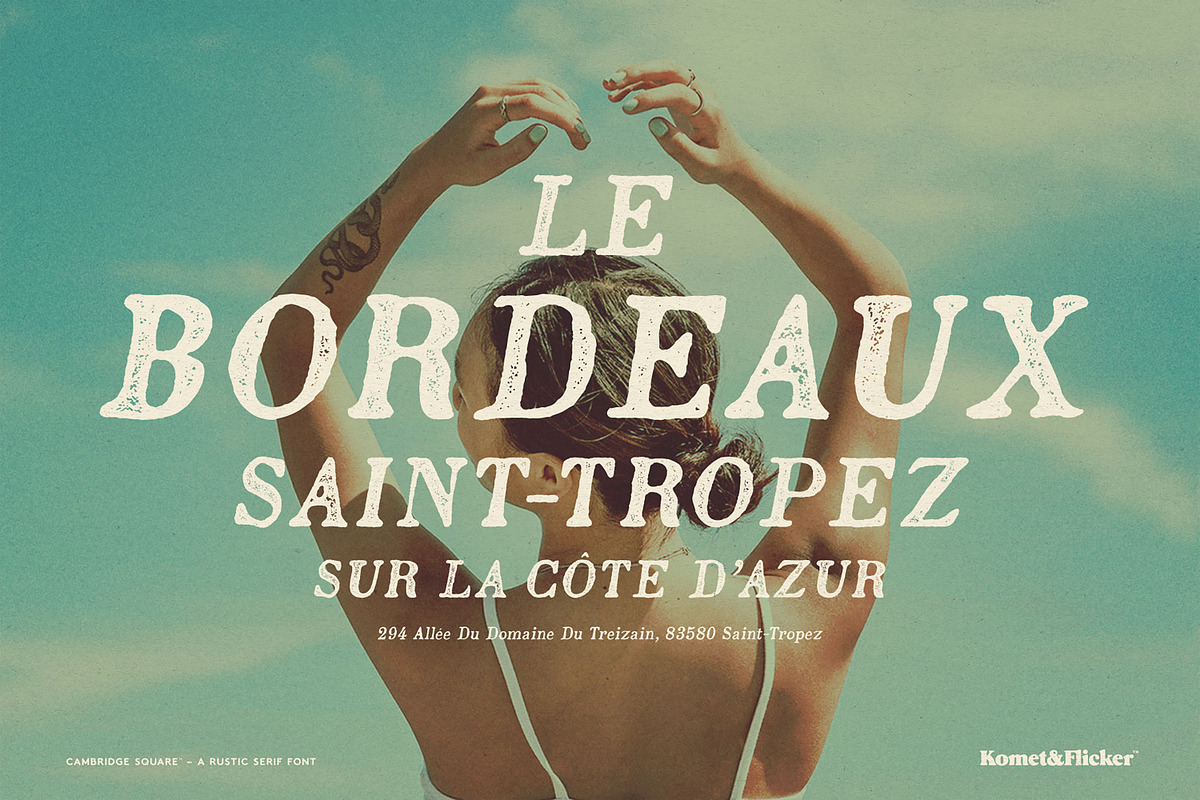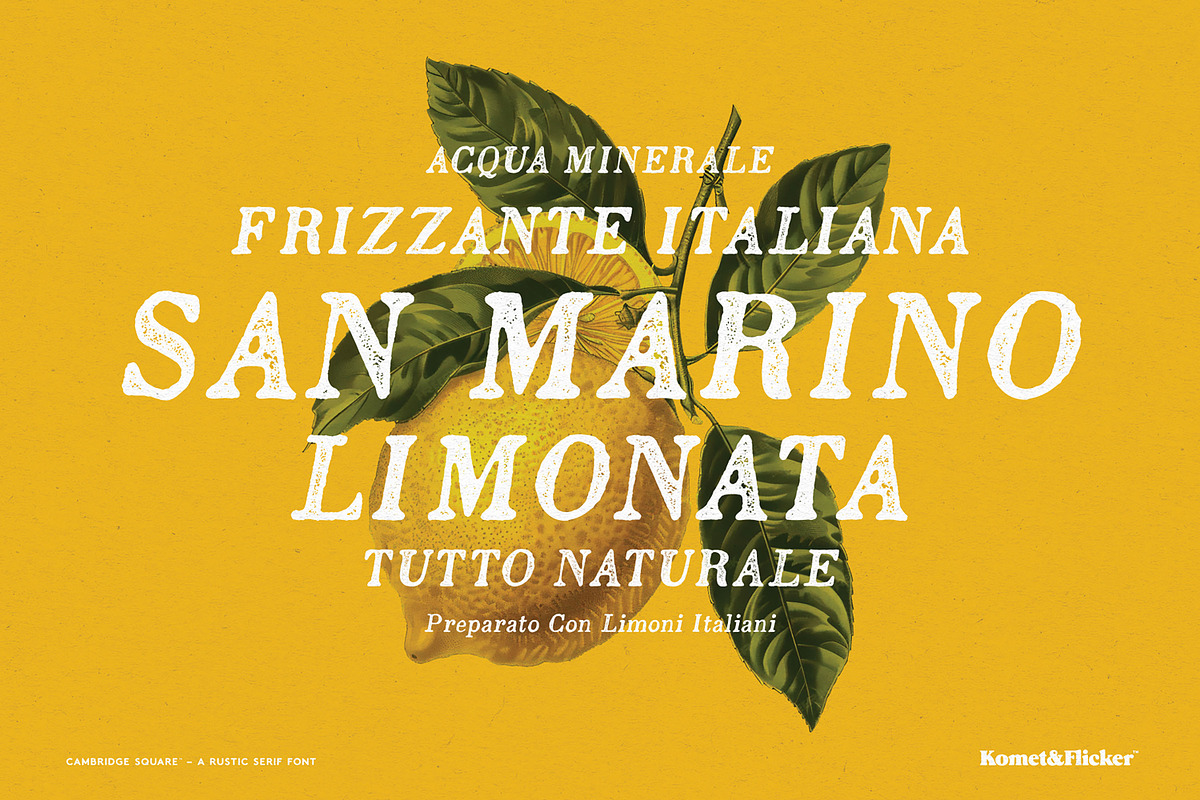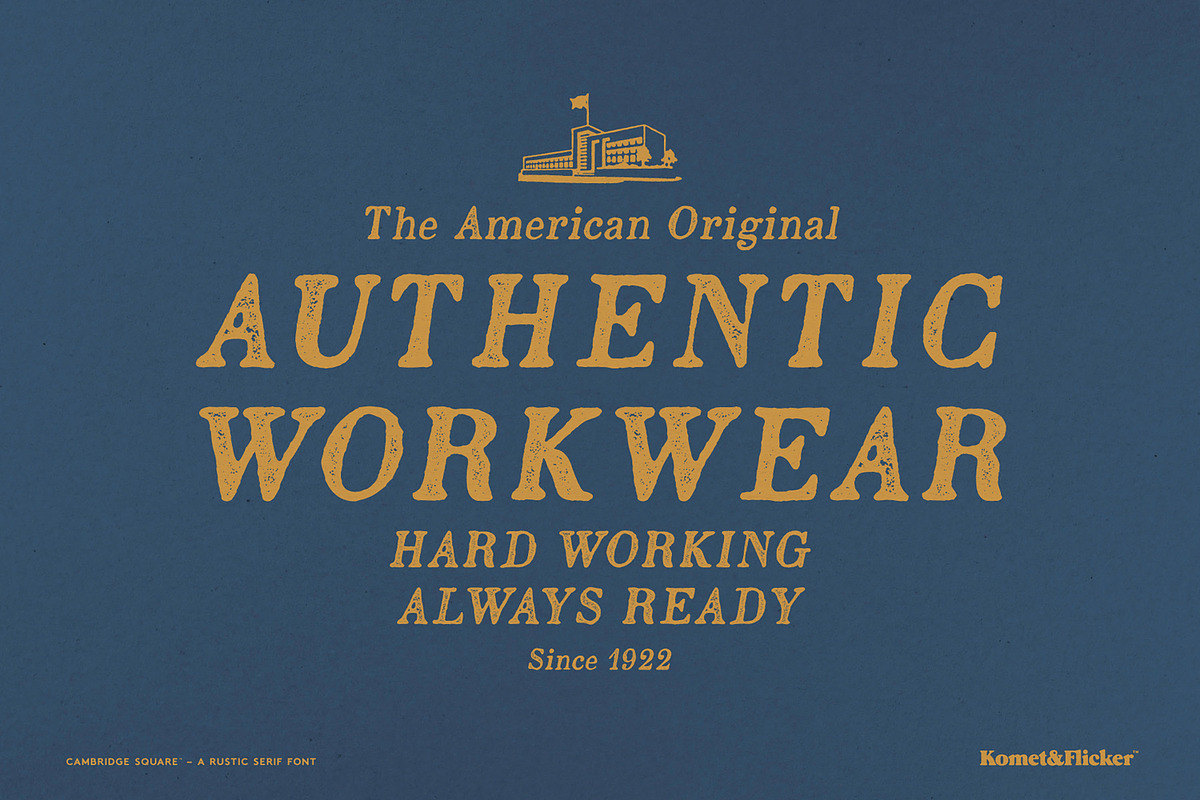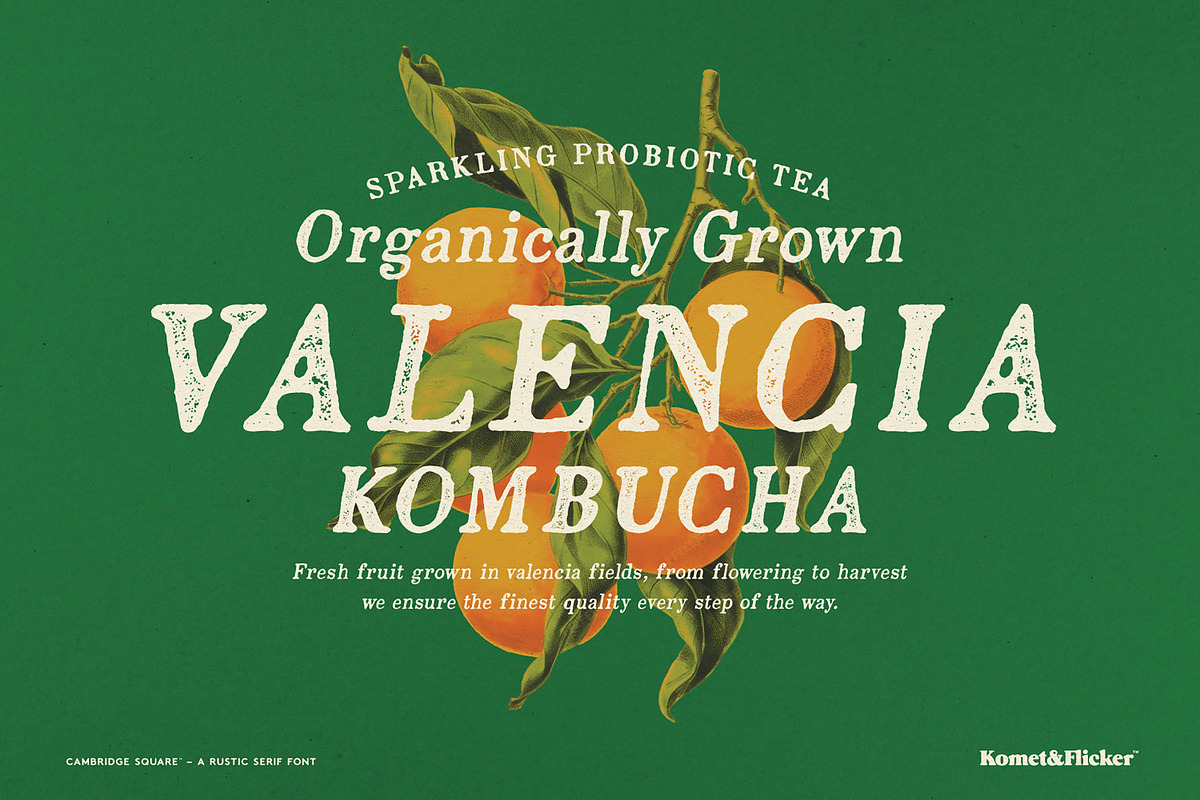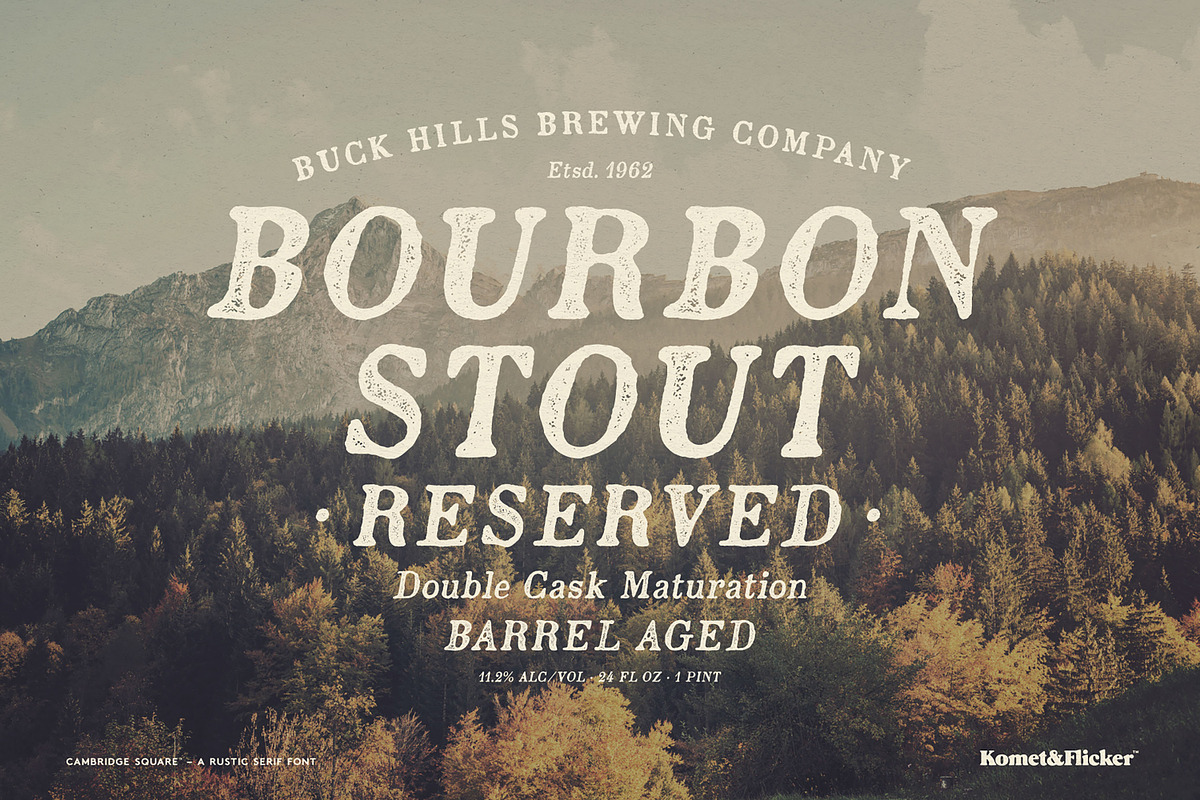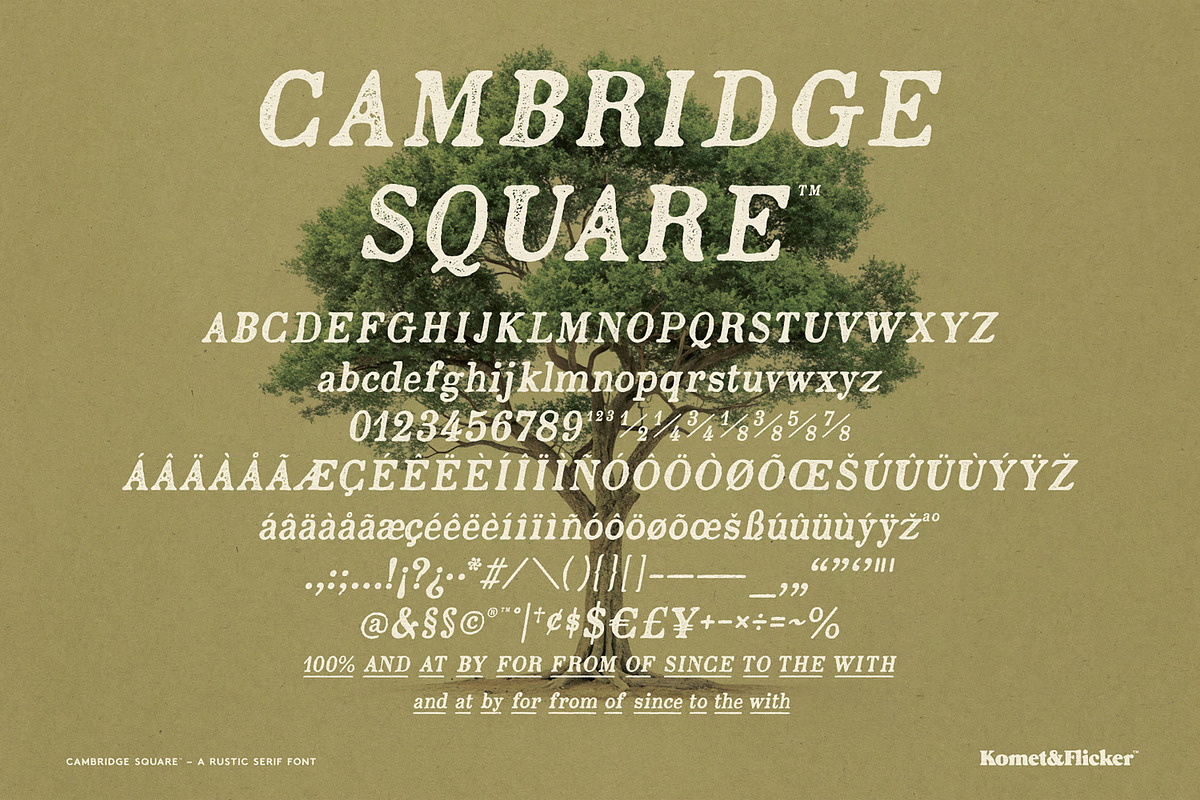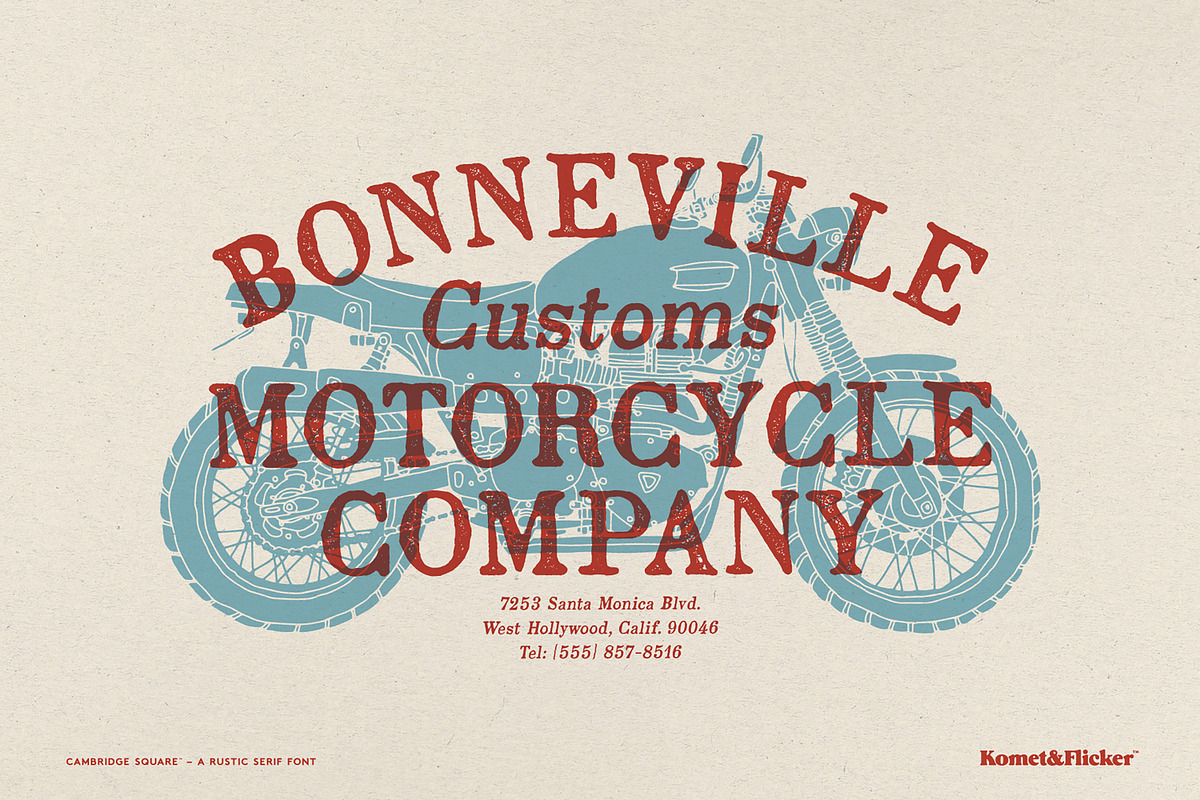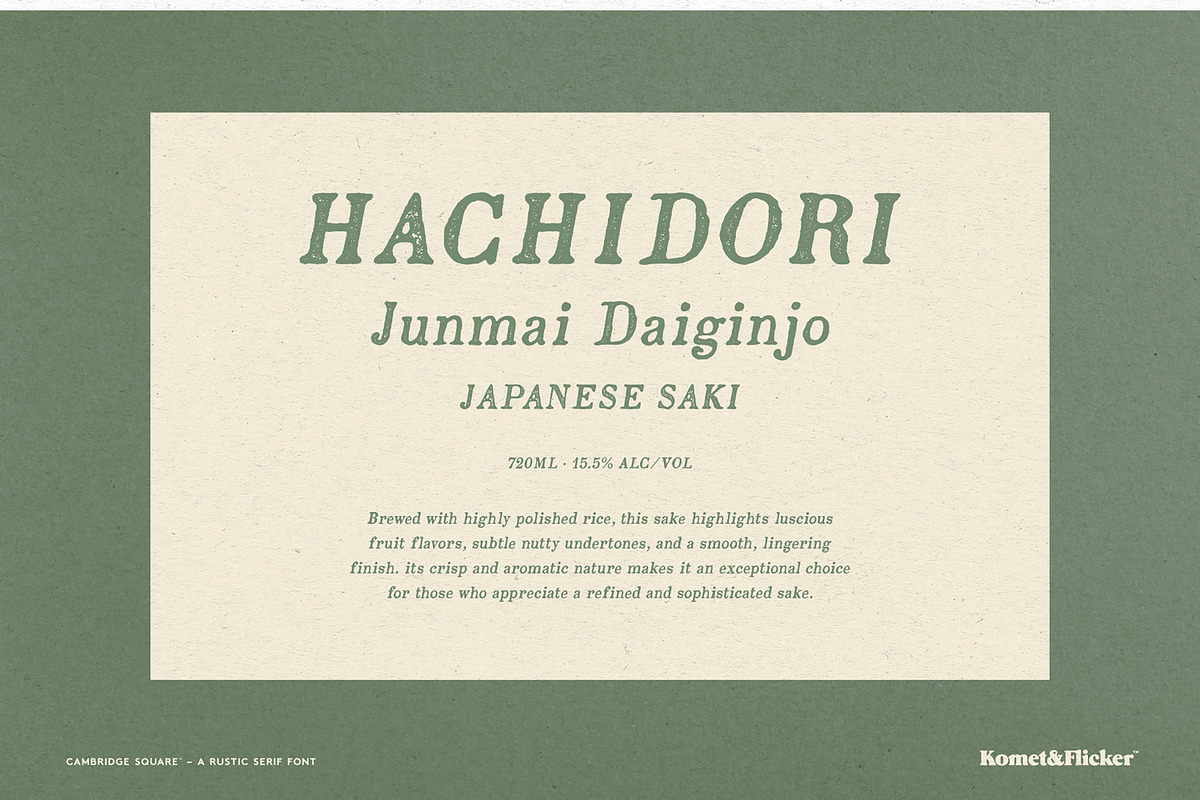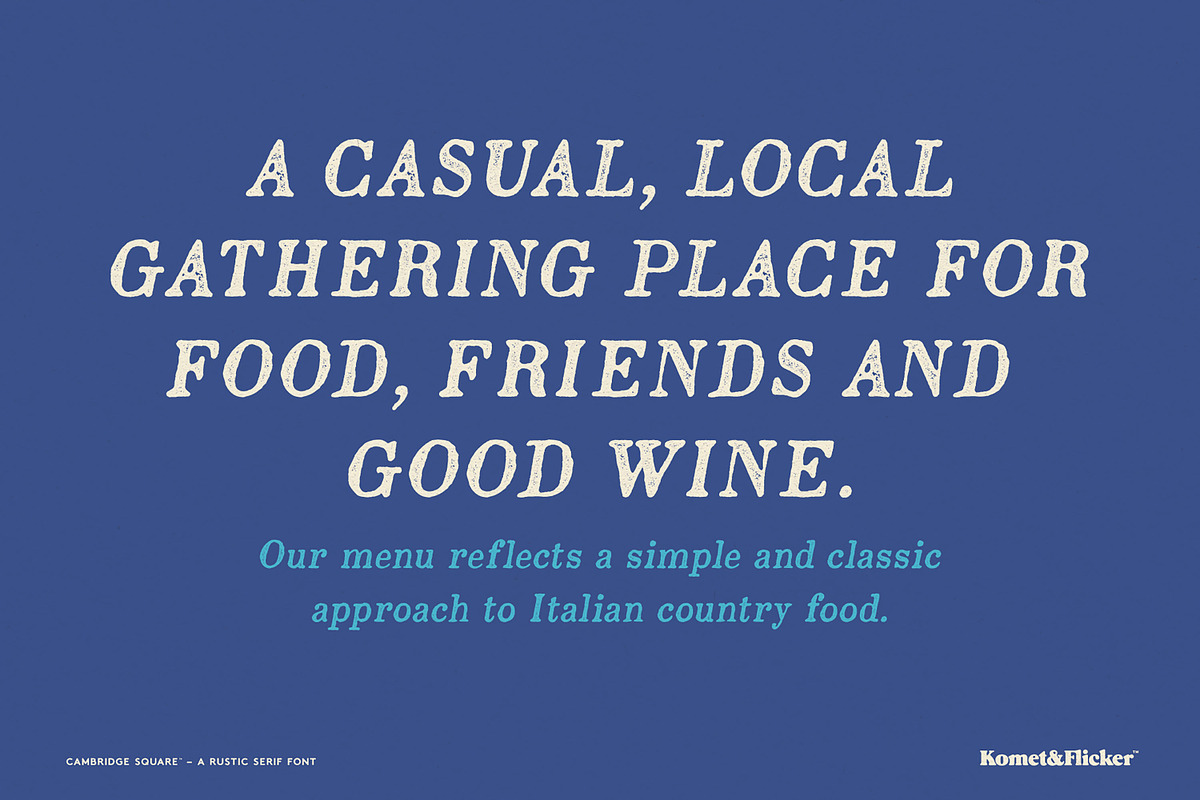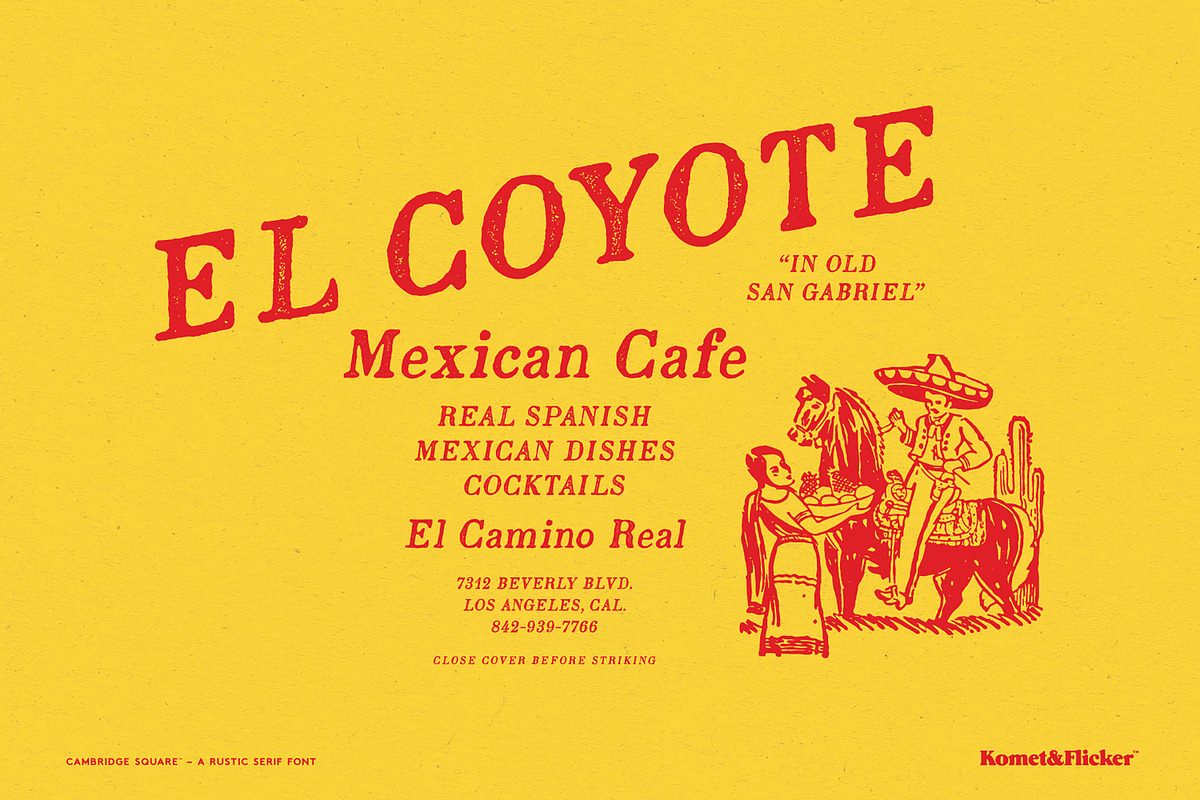
Cambridge Square - A Rustic Font
Cambridge Square is a rustic serif font with a timeless, old-style look. Inspired by antique printing, it carries an antique heritage feel – warm, textured, and quietly confident – perfect for designs that want to feel storied rather than slick.
The family comes in four thoughtfully crafted styles: Regular and Italic, each available in Solid and Stamp versions. The solid cuts deliver classic clarity, while the stamp styles add a weathered, tactile character that feels straight off a vintage press.
To elevate your typography even further, Cambridge Square includes 11 custom connecting word glyphs, provided in two styles. These bespoke ligatures allow you to create seamless, hand-crafted wordmarks and headlines with a unique, cohesive flow.
Whether you’re working on branding, packaging, editorial layouts, or heritage-inspired projects, Cambridge Square brings authenticity, charm, and a touch of history to every line of text.
- Full A-Z basic upper and lowercase latin characters
- Select European specific characters
- Numbers, punctuation, and select symbols
- Pre-made common fractions
- Set of 11 custom connecting word glyphs in two styles